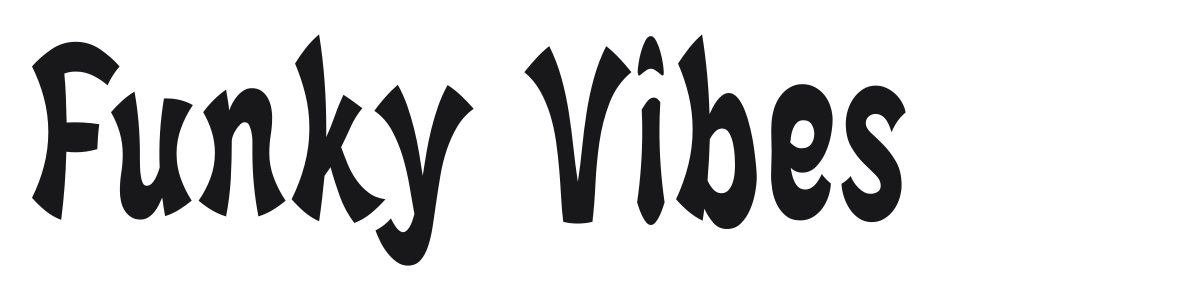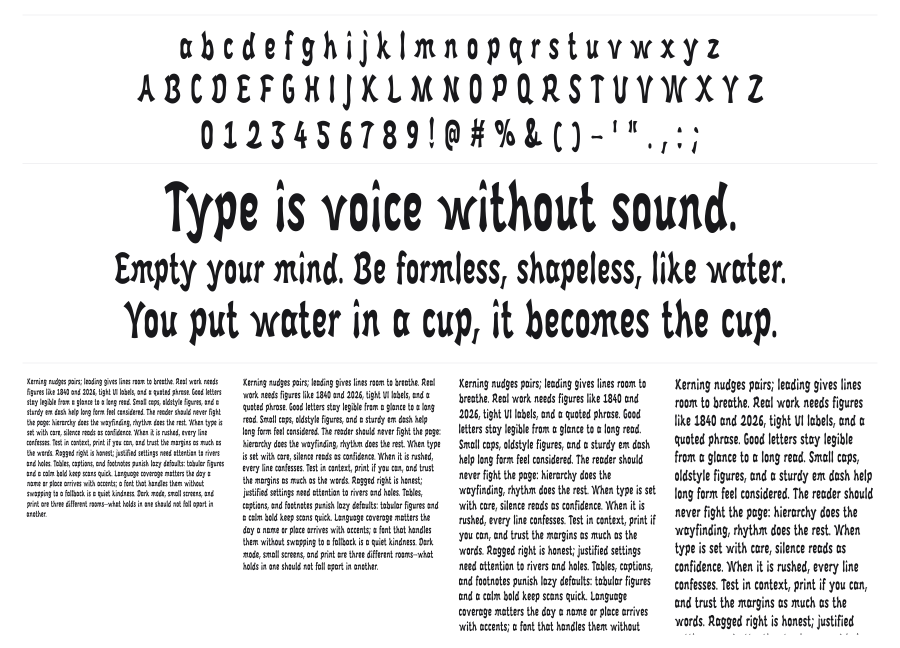
Funky Vibes
Funky Vibes is a bold retro display font with thick, swelling strokes and pointed gothic-inspired details that give it a distinctly funky 1970s character. The irregular, organic shapes and high stroke contrast create an energetic, hand-crafted feel that sits somewhere between vintage cartoon lettering and psychedelic poster art. It works best large, where the dramatic contrasts and quirky curves can do their thing.